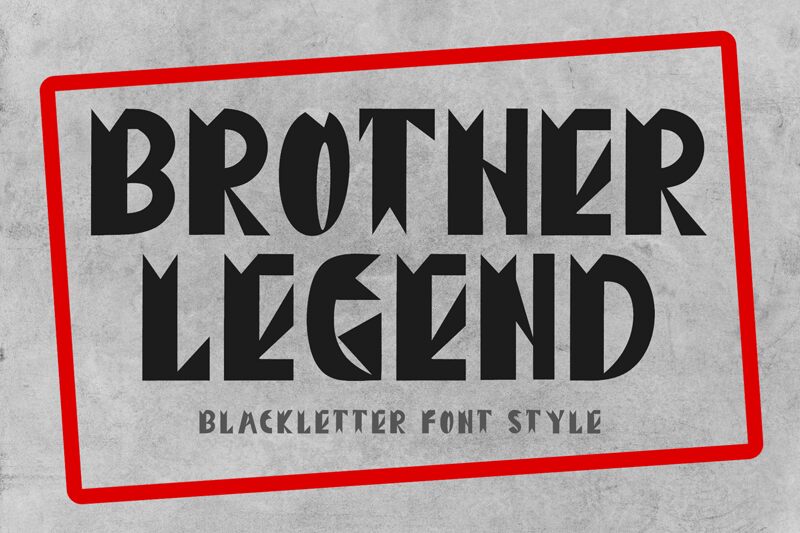
Brother Legend font by Yoga Letter is a free fancy typeface with decorative qualities and bold characteristics. It brings forth a strong poetic atmosphere while capturing the essence of medieval styles and Gothic visual themes. The geometric shapes of the letters speak of technical modernism while following a structure similar to a cabin which adds a stylistic effect.
One of the best use cases for this font is typography related to architecture, allowing users to create exciting layouts with characters that complement each other for both display and exhibition designs. Exploring the artistic side, use it for graphic design projects related to technology and science fiction themes, or create titles for adventure books, covers and posters for animated series, and gaming projects.